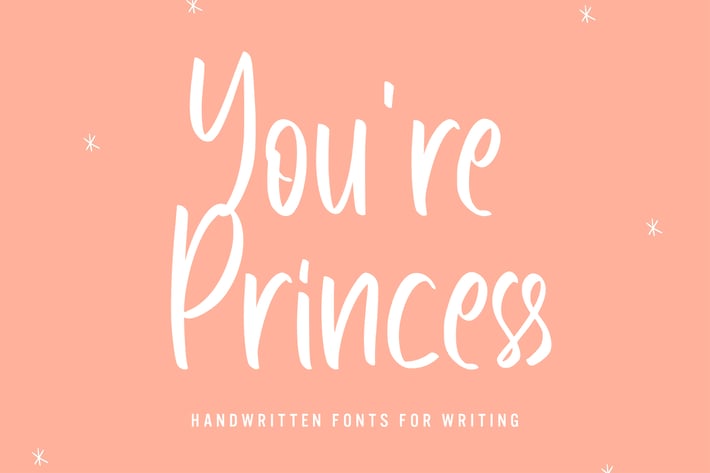
Youre Princess - Handwritten Font
Youre Princess - Handwritten Font that has a distinctive character that is very thick and elegant to use
Youre Princess is a relaxed and flowing Handwritten Font. Incredibly versatile, this font fits a wide pool of designs, elevating them to the highest levels. Add this font to your favorite creative ideas and notice how it makes them come alive!